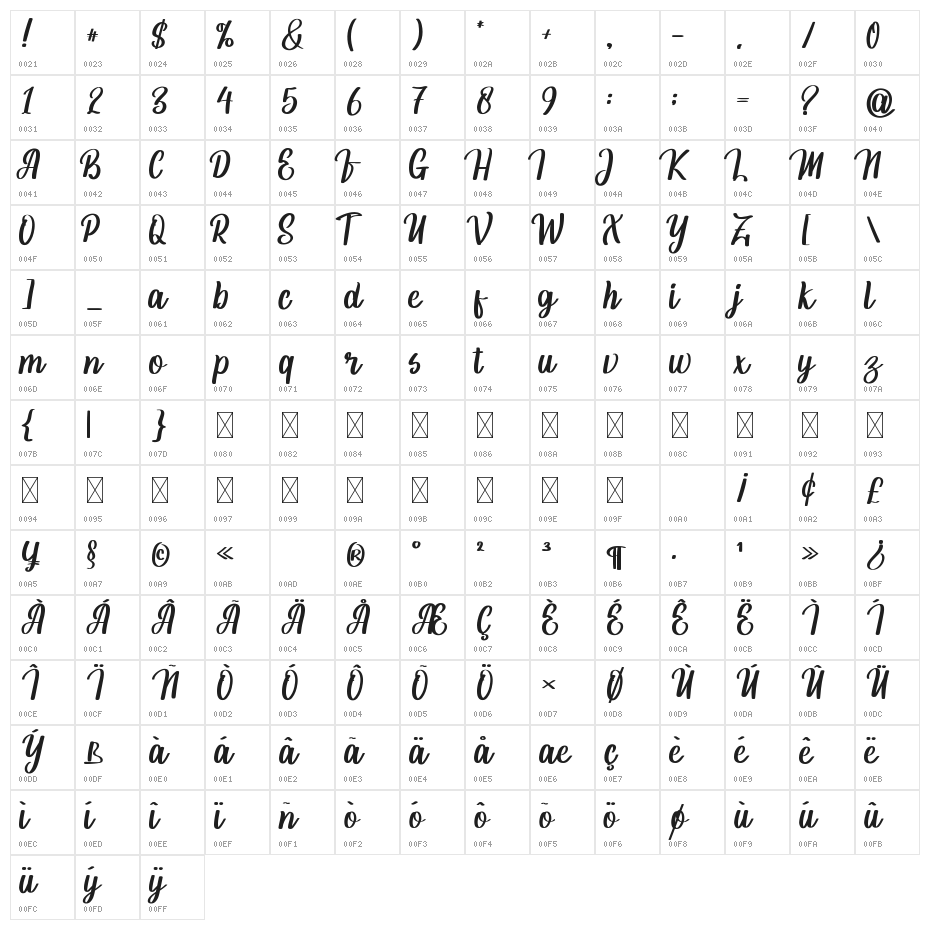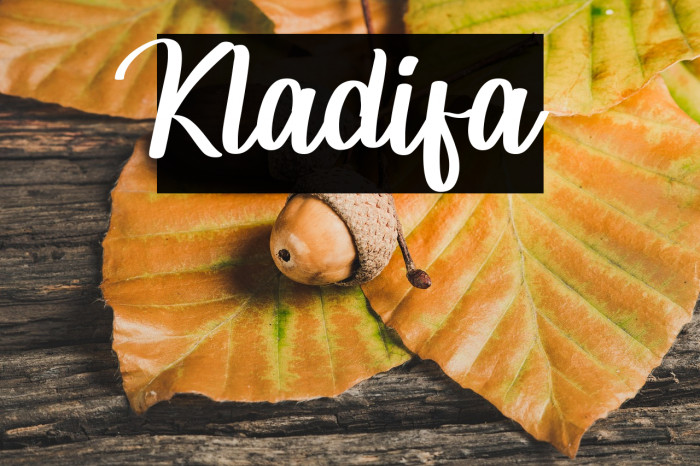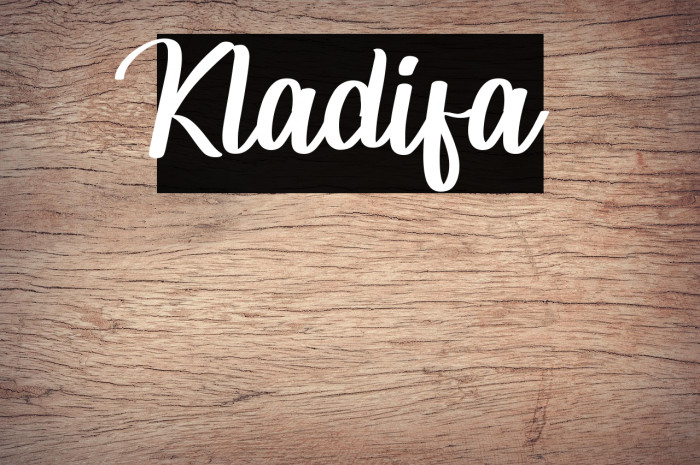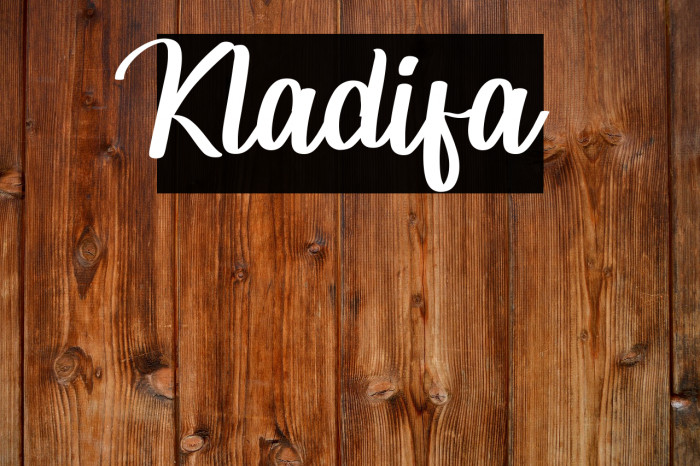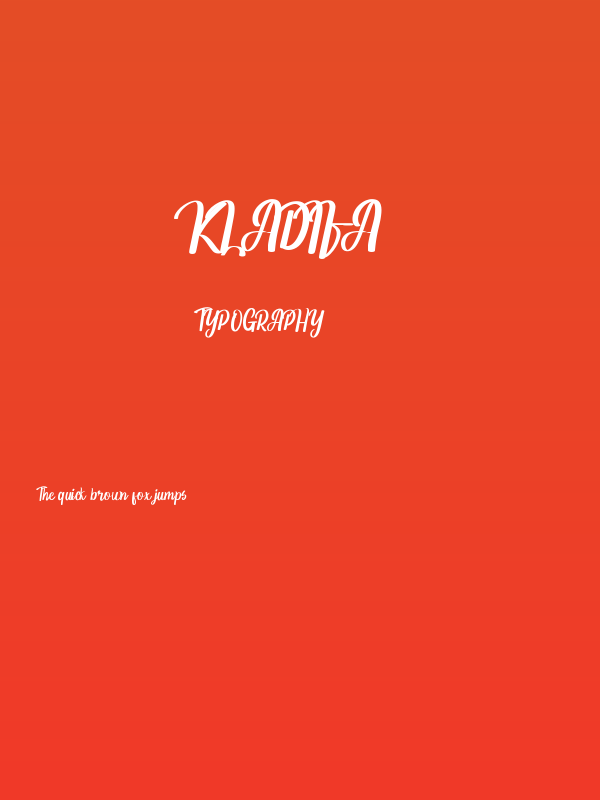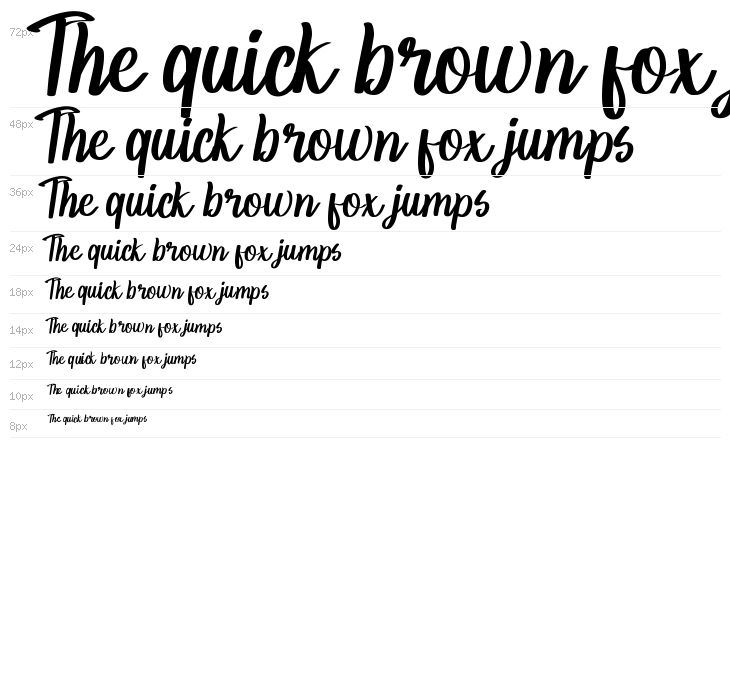
Kladifa Font
Kladifa Description
This font features a bold, flowing script style with a modern and elegant touch. The characters are interconnected, giving a sense of continuity and fluidity. The uppercase letters are tall and slightly slanted, while the lowercase letters maintain a consistent baseline with smooth curves. The numerals are distinct and maintain the script's flowing nature. Special characters are well-integrated, matching the overall aesthetic. The font's design is both stylish and legible, making it suitable for a variety of creative applications.